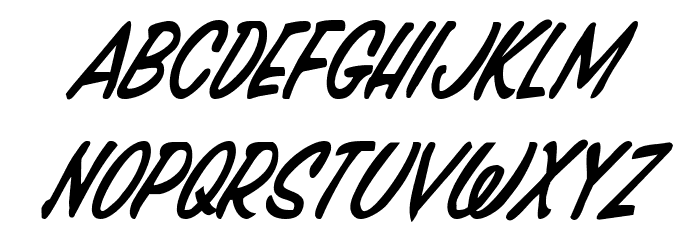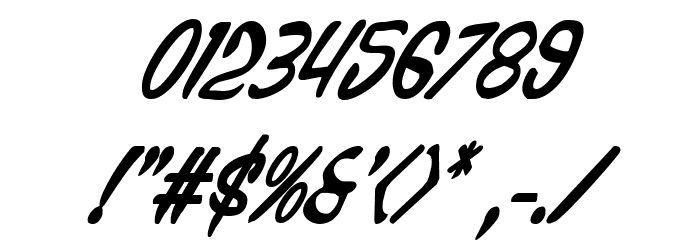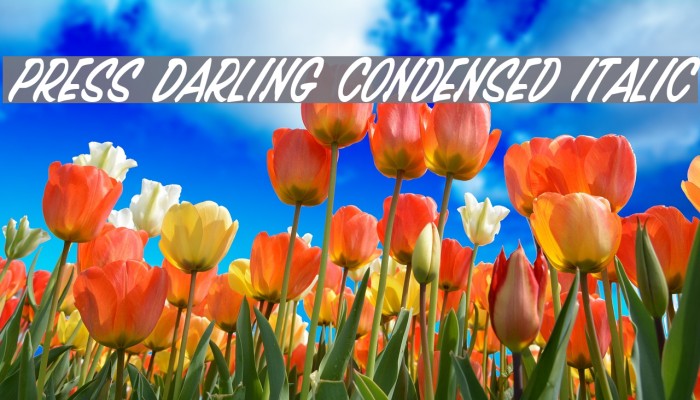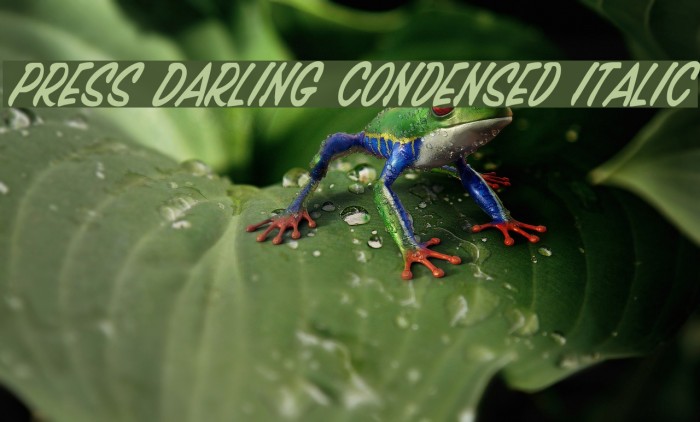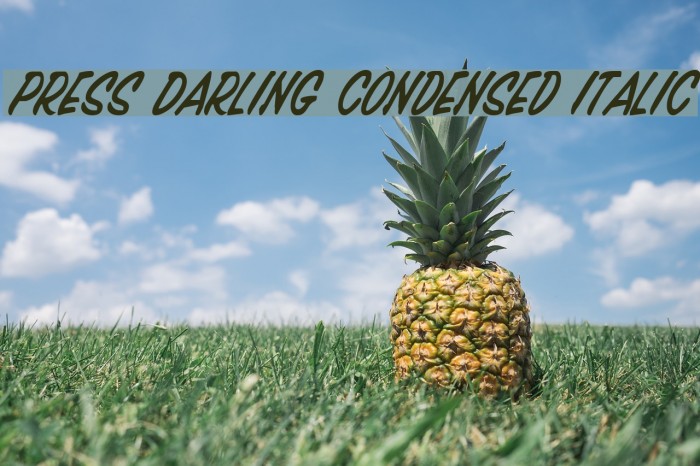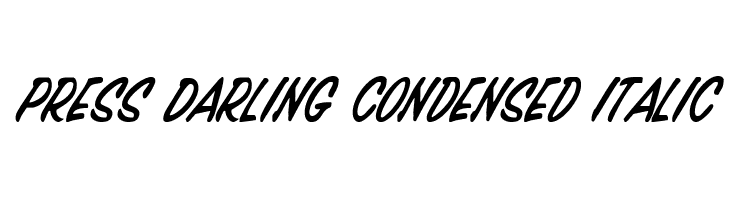
Press Darling Condensed Italic Font
This font features a dynamic and energetic style with a condensed and italicized form. The characters are bold and slanted, giving a sense of movement and urgency. The strokes are smooth and fluid, with a consistent thickness that adds to its bold appearance. The uppercase and lowercase letters maintain a cohesive look, while the numerals and special characters complement the overall design. This font is ideal for making a strong visual impact, with its distinctive and eye-catching appearance.
A bold, condensed, and italicized font with a dynamic and energetic style.
- Proposed Projects: Ideal for posters, headlines, branding, and advertising where a strong visual impact is needed.
- Character Spacing: Tight